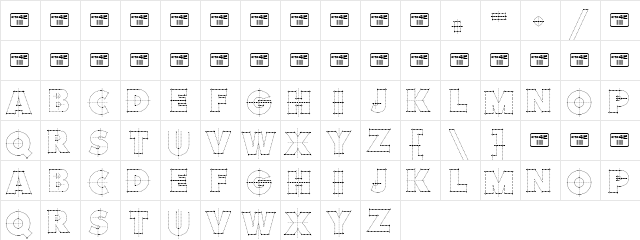
Constructivo Demo Regular
Design Context for Constructivo Demo Typeface
Constructivo Demo is a composed and adaptable typeface that performs quietly and consistently across a wide range of design contexts.